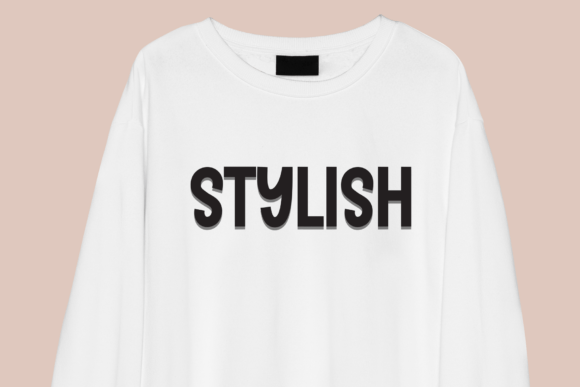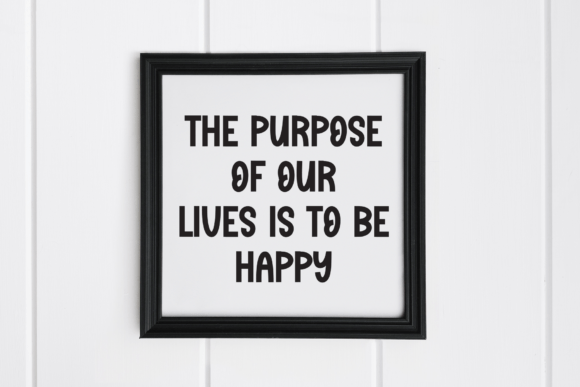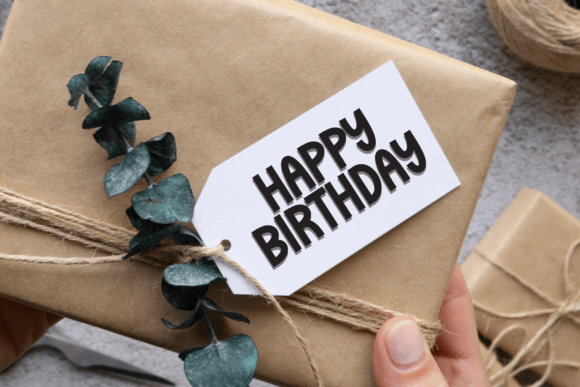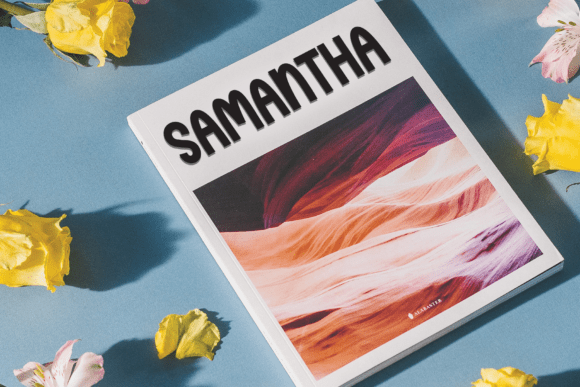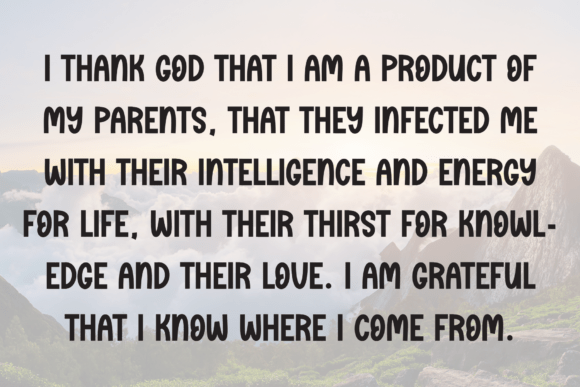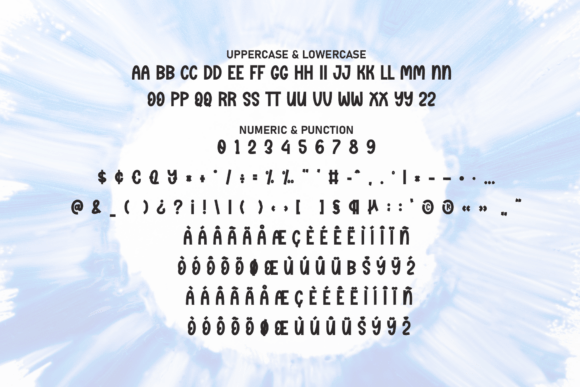
Introducing Brush Center Font: The Perfect Blend of Simplicity and Warmth
In the world of typography, finding the right font can make all the difference in creating a lasting impression. For designers and crafters looking for a font that combines simplicity with a friendly, approachable vibe, Brush Center Font is an excellent choice. This casual and neat display font is designed to capture the essence of modern handwritten typography with a polished finish, making it ideal for a wide range of design projects.
Clean Lines, Balanced Letterforms, and Subtle Rounded Edges
Brush Center Font boasts clean lines, balanced letterforms, and subtle rounded edges that give it a unique and charming personality. The font’s design is carefully crafted to convey a sense of warmth and approachability, making it perfect for branding, headlines, packaging, and digital content. The clean lines and balanced letterforms ensure that the font is easy to read, while the subtle rounded edges add a touch of softness and friendliness.
Modern Handwritten Typography with a Polished Finish
Brush Center Font is inspired by modern handwritten typography, but with a polished finish that sets it apart from more traditional handwritten fonts. The font’s design is characterized by a sense of fluidity and movement, giving it a dynamic and energetic feel. At the same time, the polished finish ensures that the font looks refined and sophisticated, making it suitable for a wide range of design applications.
Brush Center Font is an excellent choice for designers and crafters looking for a font that can add a warm and inviting touch to their designs. The font’s versatility makes it suitable for a wide range of projects, from branding and headlines to packaging and digital content. Whether you’re creating a logo, a brochure, or a social media post, Brush Center Font is a great choice for adding a personal touch to your design.
Key Features of Brush Center Font
- Clean lines and balanced letterforms: Ensure that the font is easy to read and understand.
- Subtle rounded edges: Add a touch of softness and friendliness to the font.
- Modern handwritten typography with a polished finish: Give the font a unique and charming personality.
- Versatile style: Suitable for a wide range of design applications, from branding and headlines to packaging and digital content.
- Crisp structure: Deliver clarity and charm in equal measure.
In conclusion, Brush Center Font is an excellent choice for designers and crafters looking for a font that combines simplicity with a friendly, approachable vibe. With its clean lines, balanced letterforms, and subtle rounded edges, this font is perfect for adding a warm and inviting touch to any design. Its versatility and crisp structure make it suitable for a wide range of design applications, from branding and headlines to packaging and digital content. Try Brush Center Font today and see how it can elevate your designs to the next level!